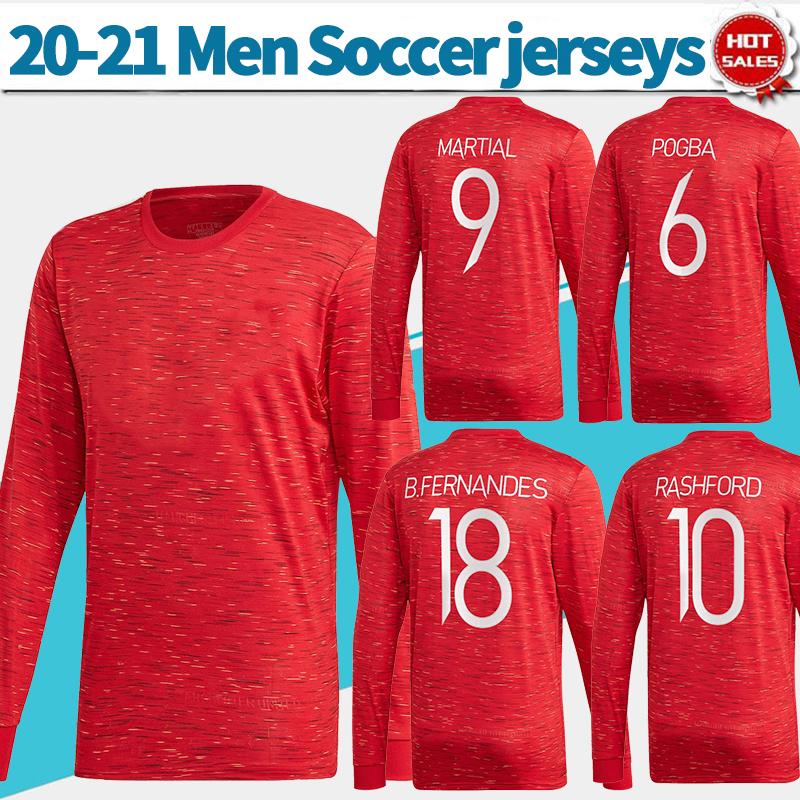
Cricket jersey india custom. The upper and lower case s and s are different the lower case one being more traditional for this style of font. Custom football jersey font. Submit a font tools.
The left and right curly brackets hold alternate glyphs for numbers 2 and 5. We have free athletic numbers and letters so you can make your own free sports jersey. Freshman by william boyd 3131321 downloads 996.
2020 2021 adidas bayern muenchen bundesliga font otf typography. My version of another classic sports font. Size sports jersey by arfurware.